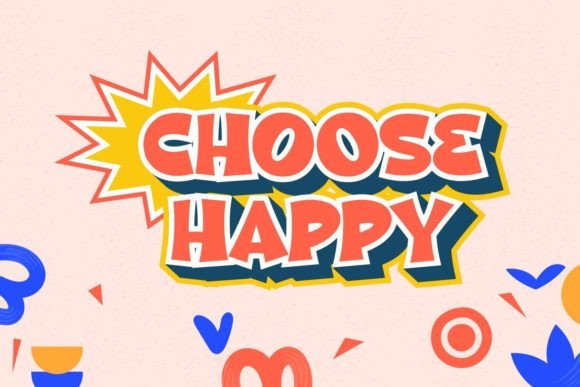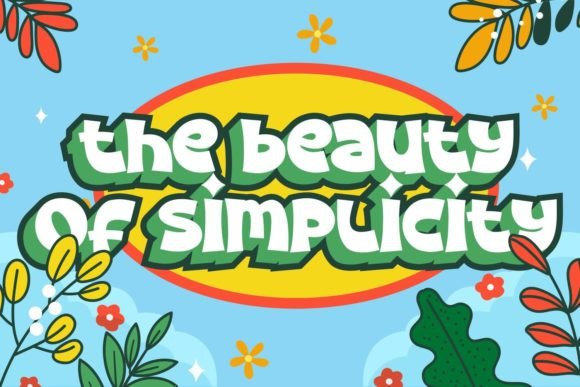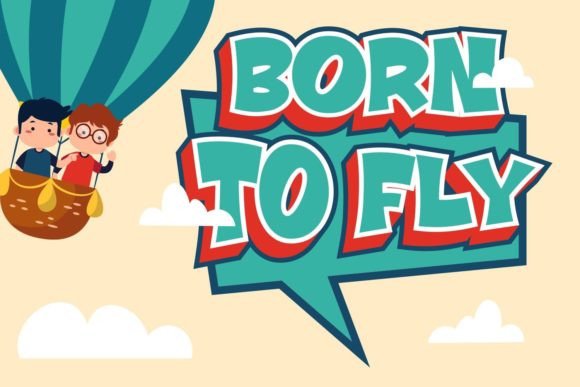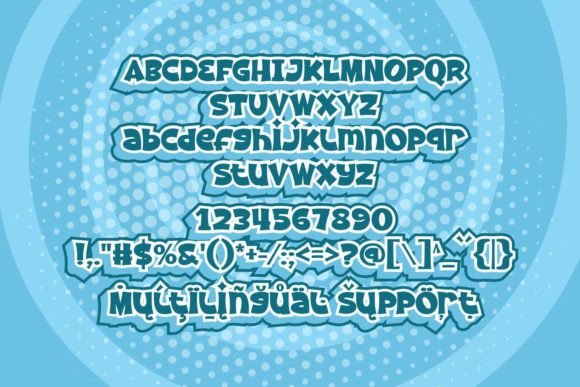
Introducing Comic Koes Font: Add a Touch of Whimsy to Your Designs
Are you looking for a font that can bring a dash of playfulness and joy to your typography designs? Look no further than Comic Koes Font! This sweet and playful display font is perfect for designers and crafters who want to add a touch of whimsy to their projects. In this article, we’ll dive into the features and benefits of Comic Koes Font, and explore the various ways you can use it to create stunning designs.
What is Comic Koes Font?
Comic Koes Font is a unique and creative display font characterized by thickset glyphs. Its bold and chunky design makes it perfect for creating eye-catching typography designs that are sure to grab attention. Whether you’re working on a book cover, poster, flyer, or any other project, Comic Koes Font is sure to bring a smile to your audience’s faces.
Key Features of Comic Koes Font
- Thickset Glyphs: The font features thickset glyphs that give it a bold and chunky look. This makes it perfect for creating eye-catching designs that stand out.
- Playful and Whimsical: Comic Koes Font has a playful and whimsical feel that’s perfect for kid-friendly projects, product packaging, and more.
Uses for Comic Koes Font
Comic Koes Font is a versatile font that can be used in a variety of design projects. Here are some ideas to get you started:
- Book Covers: Use Comic Koes Font to create eye-catching book covers that will stand out on bookstore shelves.
- Posters and Flyers: Create bold and attention-grabbing posters and flyers that will grab people’s attention.
- Kid-Friendly Projects: Comic Koes Font is perfect for kid-friendly projects, such as children’s book illustrations, educational materials, and more.
- Product Packaging: Use Comic Koes Font to add a touch of whimsy to your product packaging and make it stand out on store shelves.
- Invitations: Create playful and fun invitations for parties, events, and more.
Benefits of Using Comic Koes Font
There are many benefits to using Comic Koes Font in your designs. Here are a few:
- Easily Readable: Despite its bold and chunky design, Comic Koes Font is easily readable, even at small sizes.
- Unique and Creative: Comic Koes Font is a unique and creative font that will add a touch of personality to your designs.
Tips for Using Comic Koes Font
Here are a few tips for using Comic Koes Font in your designs:
- Experiment with Colors: Comic Koes Font looks great in bold and bright colors. Experiment with different colors to find the perfect combination for your design.
- Mix and Match: Don’t be afraid to mix and match Comic Koes Font with other fonts to create a unique and interesting design.
- Keep it Simple: While Comic Koes Font is a bold and chunky font, it’s best to keep your design simple and clean to avoid overwhelming the viewer.
Comic Koes Font is a sweet and playful display font that’s perfect for designers and crafters who want to add a touch of whimsy to their designs. With its thickset glyphs, PUA encoding, and playful feel, it’s perfect for creating eye-catching typography designs that are sure to grab attention. Whether you’re working on a book cover, poster, flyer, or any other project, Comic Koes Font is sure to bring joy and cuteness to your designs.